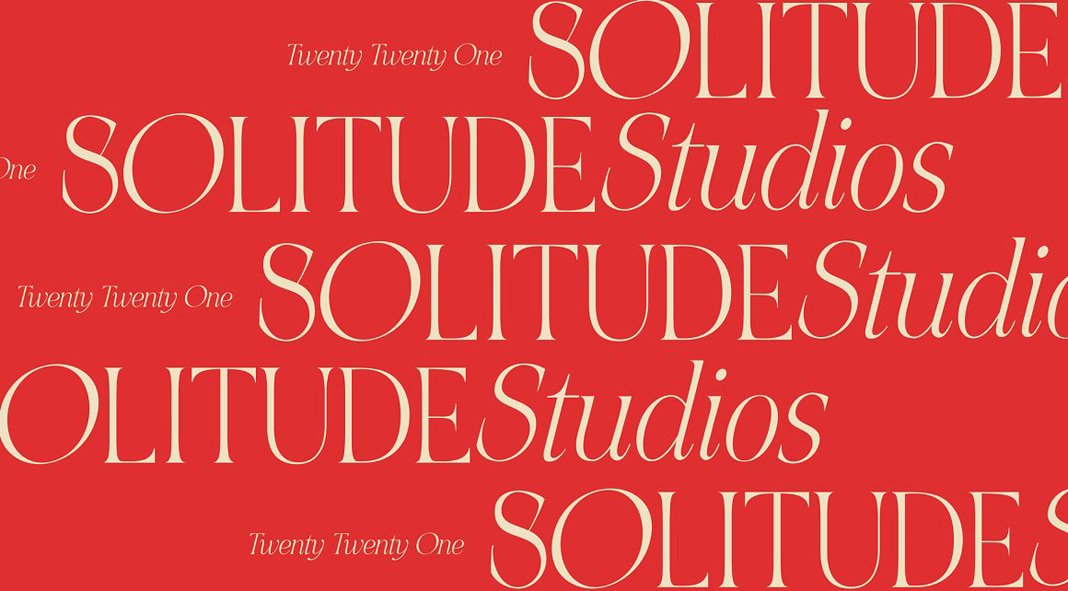
NOIR et BLANC, an elegant serif font family created and published by typeface designer Nicky Laatz.
NOIR et BLANC is a super stylish serif font family that comes with elegant ligatures and plenty of alternate letters. Designed by Nicky Laatz, the typeface is as dramatic as the contrast between black and white. The NOIR et BLANC font family consists of three weights that help the typeface to look perfect at both large and small sizes as well as on light and dark backgrounds. To access the OpenType ligatures and alternate characters you will need OpenType capable software as known from Adobe.